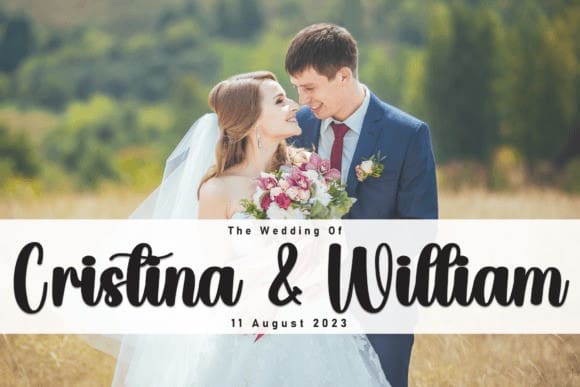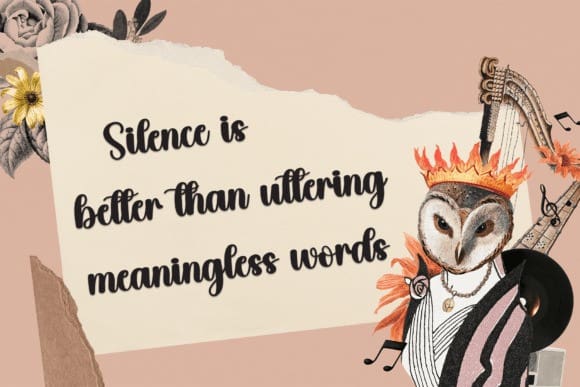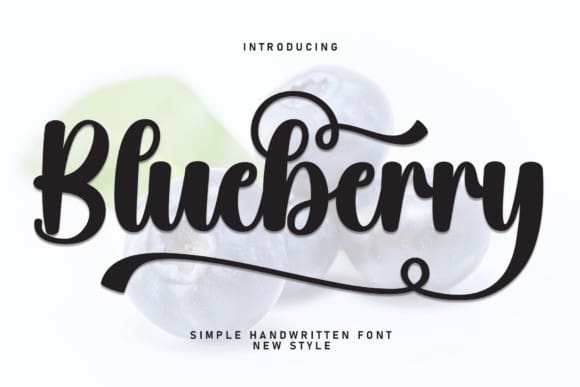
Blueberry Script Font
Blueberry Script Font is an exquisite handwritten font, masterfully designed to become a true favorite. It maintains its classy calligraphic influences while feeling contemporary and fresh. Fall in love with it and bring your projects to the highest levels!